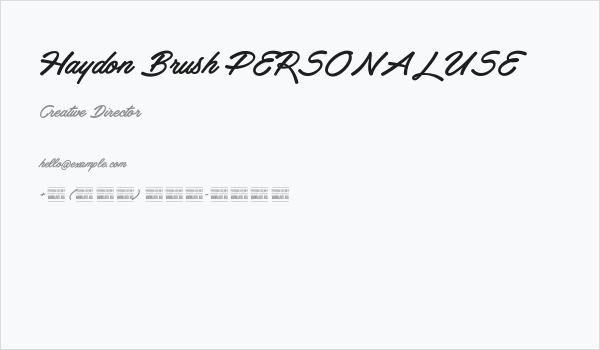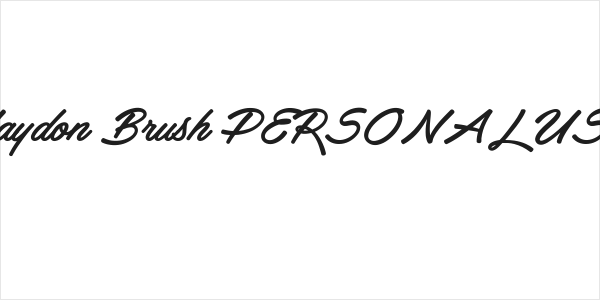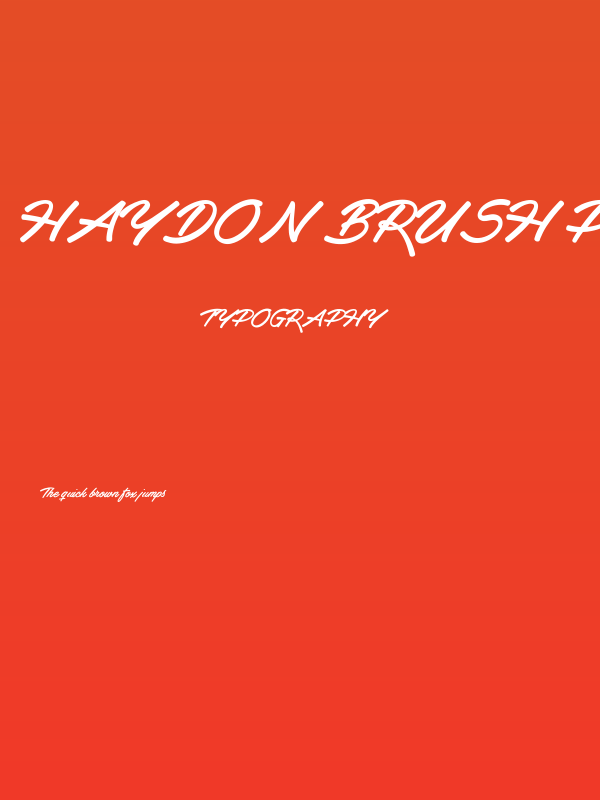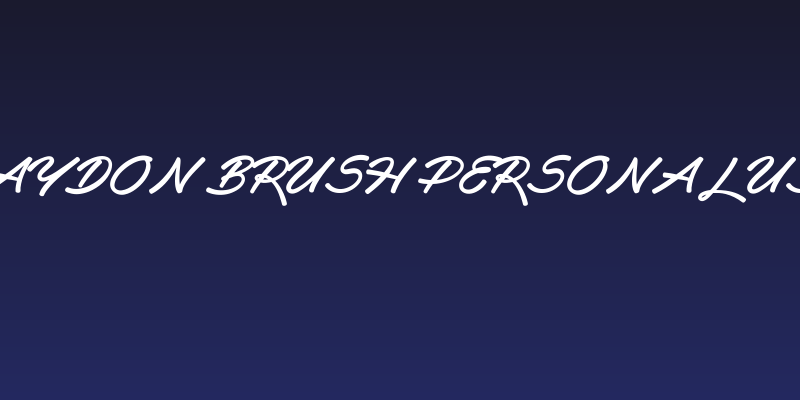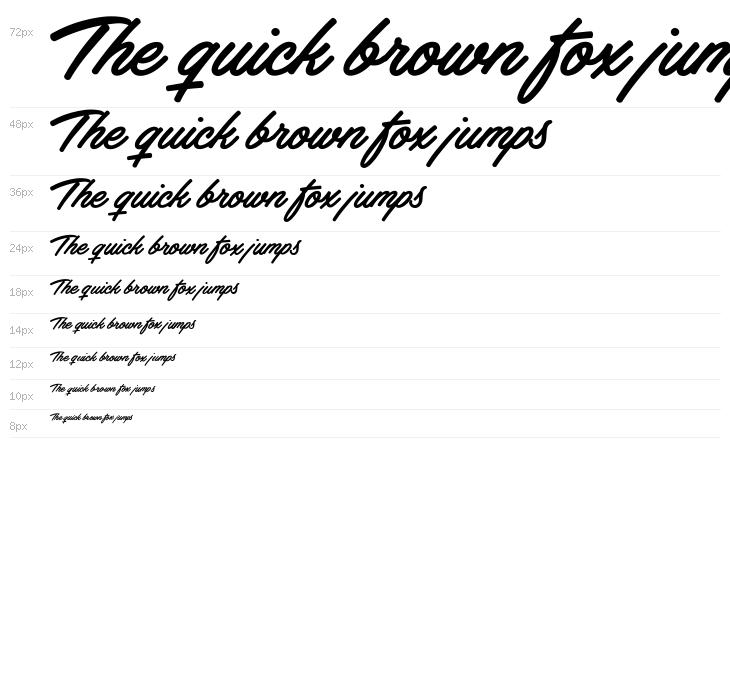
Haydon Brush PERSONAL USE Font
Haydon Brush PERSONAL USE Description
This font features a flowing, cursive style with smooth, connected strokes that give it a handwritten appearance. The letters are elegantly slanted, adding a sense of motion and fluidity. The uppercase characters are bold and prominent, while the lowercase letters maintain a consistent flow, making it ideal for creating a personal and artistic touch. The numerals and special characters are crafted with the same attention to detail, ensuring a cohesive look across all text. This font exudes a sense of elegance and sophistication, making it suitable for a variety of creative projects.
Overall StyleElegant, Handwritten
Use CaseLogos, Invitations, Artistic projects
Proposed ProjectsIdeal for wedding invitations, greeting cards, personal branding, and artistic projects.